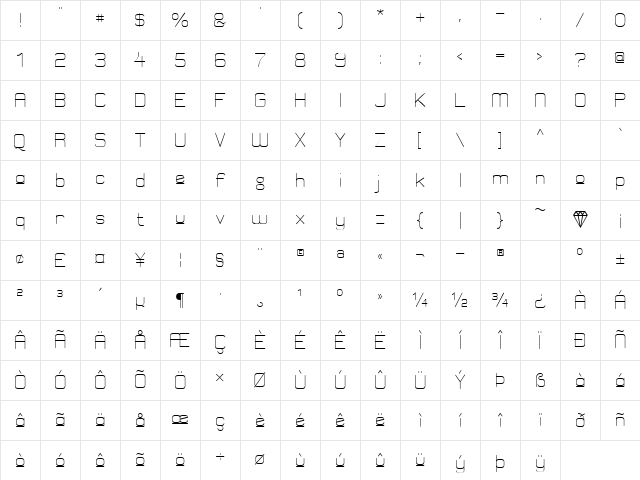
Complete Elgethy Est Upper Regular glyph index. Displaying only characters natively supported by Elgethy Est Upper Regular font.
Elgethy Est Upper is a composed and adaptable typeface that performs quietly and consistently across a wide range of design contexts.
Who designed the Elgethy Est Upper Regular font?